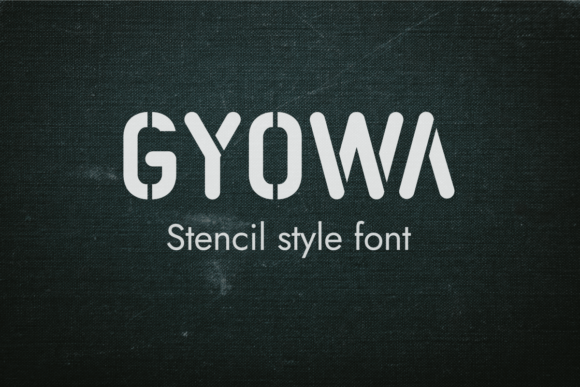
Introducing Gyowa Font: A Modern Stencil Font for Bold Designs
In the world of typography, fonts play a crucial role in conveying the tone and personality of a design. For designers and crafters looking for a modern and edgy font, Gyowa Font is an excellent choice. This all-caps stencil font features rounded corners, giving it a sleek and minimalist look that’s perfect for a wide range of design projects.
What is Gyowa Font?
Gyowa Font is a modern stencil font designed to make a statement. Its all-caps design and rounded corners give it a unique and contemporary look that’s both stylish and versatile. The font’s stencil design adds a touch of industrial chic, making it ideal for designs that require a military-style branding or a bold, edgy look.
Key Features of Gyowa Font
- All-caps design: Gyowa Font is designed in all caps, making it perfect for headlines, titles, and emphasis.
- Rounded corners: The font’s rounded corners give it a soft, modern look that’s both stylish and approachable.
- Stencil design: The stencil design adds a touch of industrial chic, making it perfect for military-style branding and bold designs.
- Versatile: Gyowa Font can be used in a wide range of design projects, from logos and t-shirts to book covers and stationery.
Use Cases for Gyowa Font
Gyowa Font is a versatile font that can be used in a variety of design projects, including:
- Logo design: The font’s bold and edgy design makes it perfect for logos that require a strong, attention-grabbing look.
- T-shirts and apparel: Gyowa Font is a great choice for designing t-shirts, hoodies, and other apparel that requires a bold, eye-catching look.
- Book covers and magazines: The font’s modern and sleek design makes it perfect for book covers, magazine titles, and other publication designs.
- Stationery and marketing materials: Gyowa Font can be used in business cards, brochures, and other marketing materials to add a touch of industrial chic.
- Blogs and websites: The font’s clean and modern design makes it perfect for use in blog headers, titles, and other website elements.
Why Choose Gyowa Font?
Gyowa Font is a great choice for designers and crafters looking for a modern and versatile font. Here are some reasons why:
- Unique design: Gyowa Font’s stencil design and rounded corners make it a unique and eye-catching font that’s sure to stand out.
- Easy to read: The font’s clean and simple design makes it easy to read, even at small sizes.
- Highly versatile: Gyowa Font can be used in a wide range of design projects, from logos and t-shirts to book covers and stationery.
- Modern and edgy: The font’s modern and edgy design makes it perfect for designers and crafters looking for a bold and attention-grabbing look.
Gyowa Font is a modern stencil font that’s perfect for designers and crafters looking for a bold and versatile font. Its all-caps design, rounded corners, and stencil design make it a unique and eye-catching font that’s sure to stand out. With its wide range of use cases and highly versatile design, Gyowa Font is a great choice for any design project that requires a modern and edgy look.